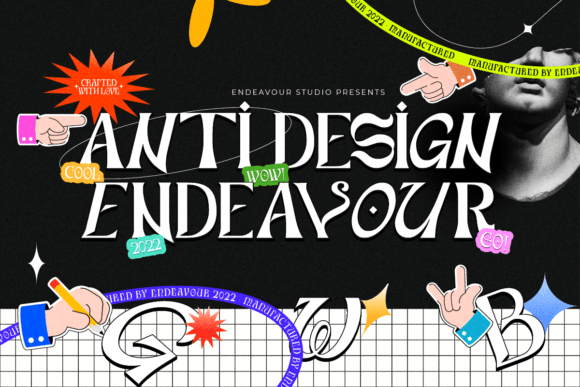
Introducing Anti Design Font - A Revolutionary Display Font for those with a knack for unconventional and eye-catching typography! The brainchild of Endeavour Studio, this font family exudes brilliance in every curve and angle.
Are you tired of the mundane, the conventional, the ordinary? Are you looking for a font that screams boldness, innovation, and creativity? Look no further! Anti Design Font is your gateway to a world of boundless design possibilities.
Step into a realm where fonts are not just letters, but works of art. Anti Design Font will captivate your audience, leaving them in awe of your design prowess. Its unique and alluring features will make your products, branding, and projects stand out from the crowd.
With its sharp angles and striking curves, Anti Design Font carries an air of sophistication that is sure to elevate your designs. Its solid structure ensures that your message will be conveyed with strength and impact, leaving an unforgettable impression on your audience.
But Anti Design Font is more than just a pretty face. It's versatile and adaptable, capable of transforming itself to suit a myriad of design needs. Whether you're crafting product packaging that screams luxury or branding that oozes creativity, Anti Design Font has the power to make your vision a reality.
So why settle for mediocrity when you can embrace the extraordinary? Unleash the power of Anti Design Font and unlock a new level of design excellence. Let your imagination run wild as you create masterpieces that will leave your audience breathless.
With Anti Design Font, you're not just buying a font; you're embarking on a journey of creative expression. Dare to be different, dare to be bold, and dare to redefine the boundaries of design.
Embrace the Anti Design Font revolution today and witness the transformation of your designs into captivating works of art. Don't let your creativity be confined by the mundane; let it soar with the boundless possibilities of Anti Design Font.